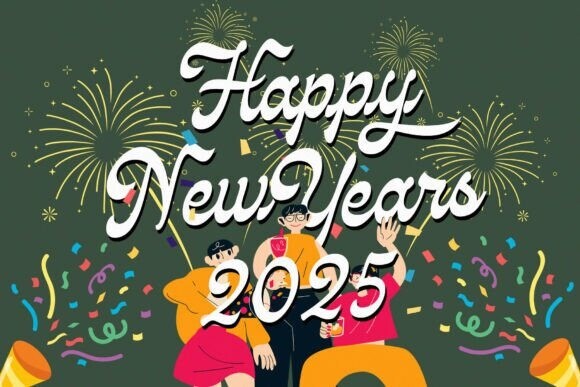
Jolly Font
Designer: maghrib
Jolly Twinkle is a script font embodying vintage and elegant curves with functional structure. The typeface offers numerous combination possibilities between the basic glyph set and stylistic sets.